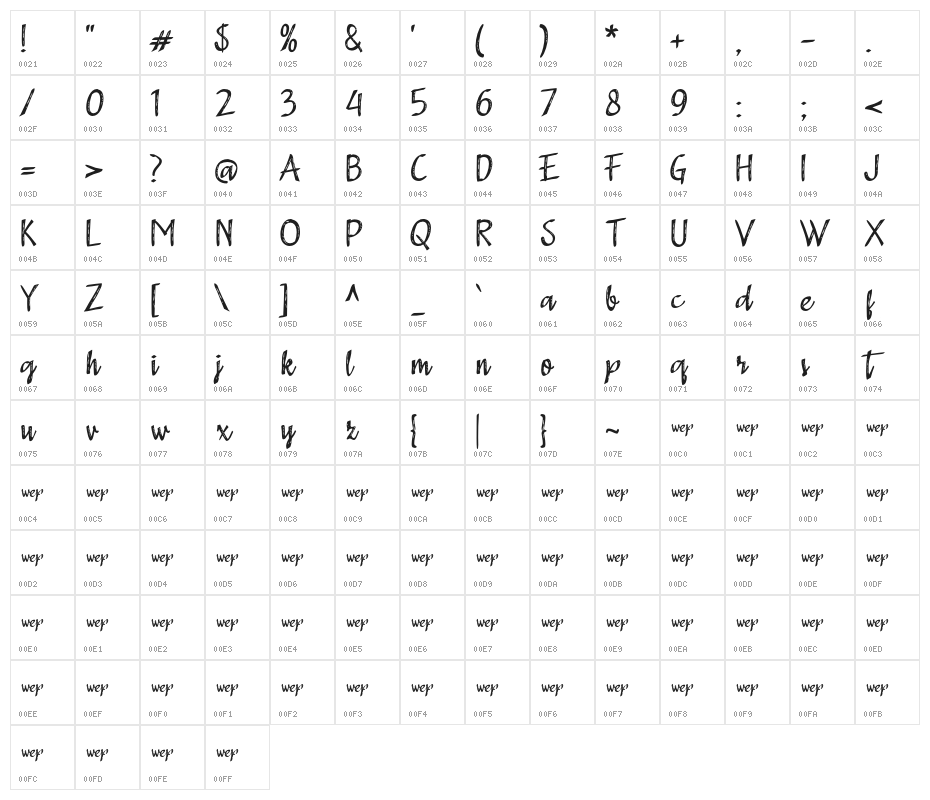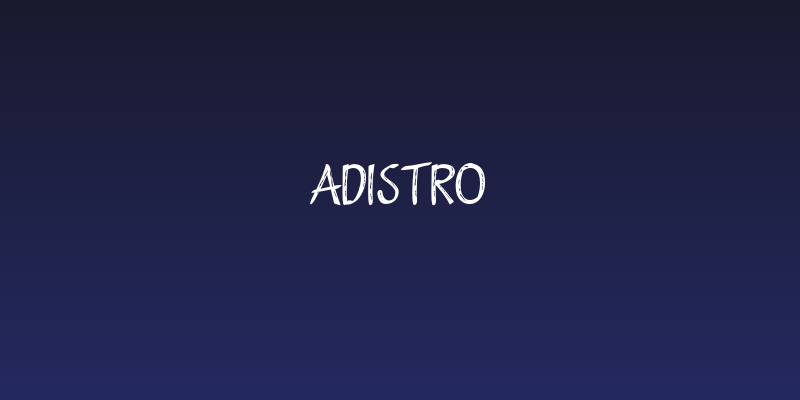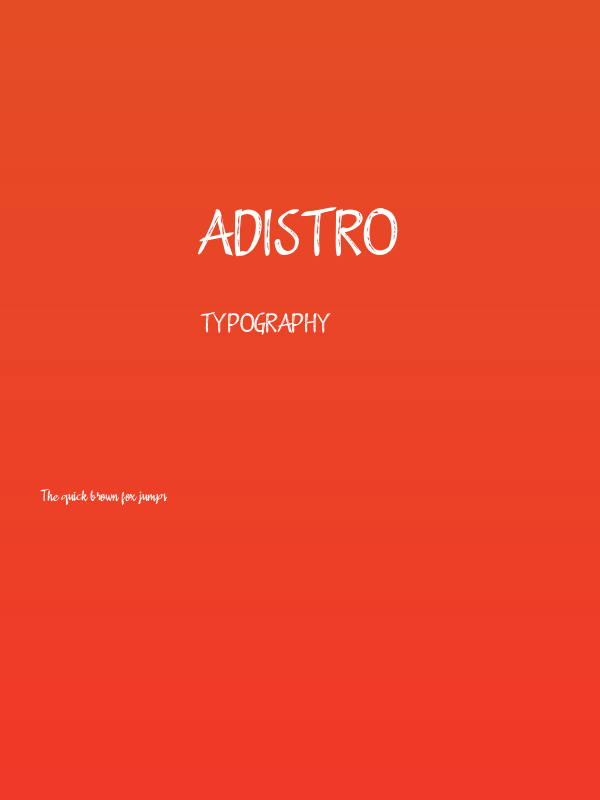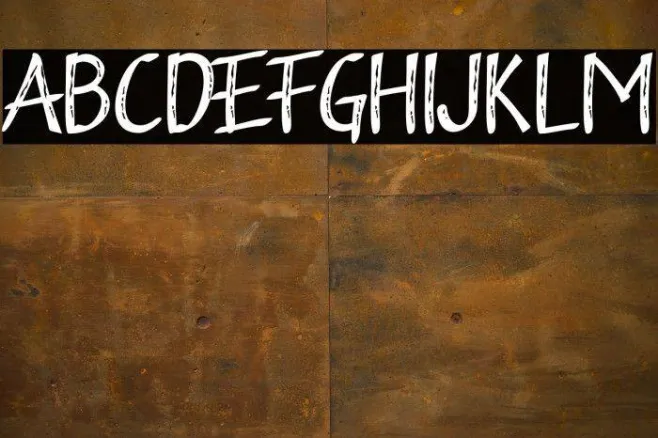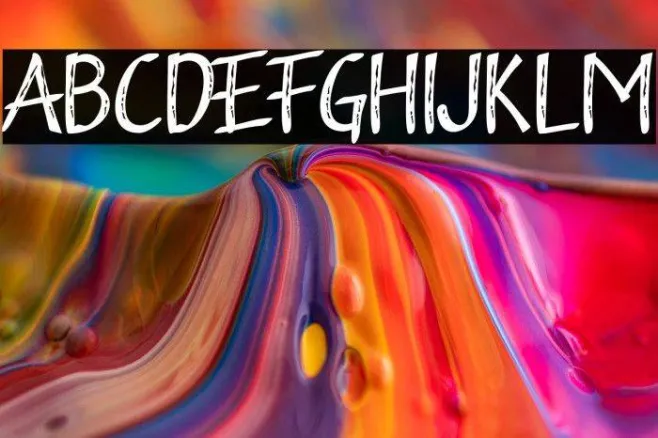
Adistro Font
Adistro Description
This font features a dynamic and energetic handwritten style, characterized by its bold and slightly irregular strokes. The uppercase letters are tall and slightly slanted, giving a sense of movement and spontaneity. The lowercase letters maintain this lively feel with a consistent flow and connected strokes, resembling a casual script. Numbers and special characters follow the same playful and informal aesthetic, making them suitable for creative and expressive designs. The overall appearance is both modern and artistic, perfect for projects that require a personal touch.